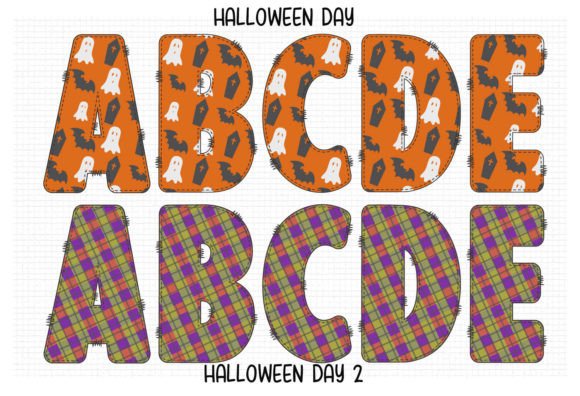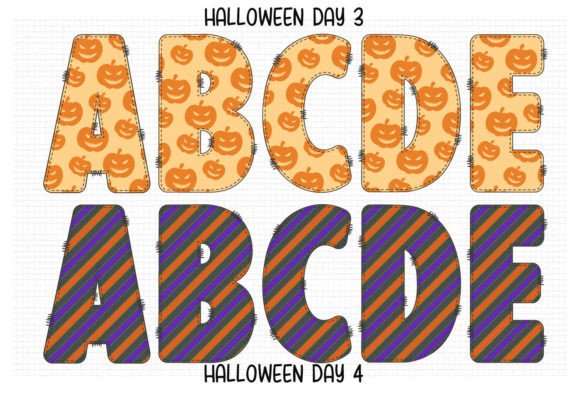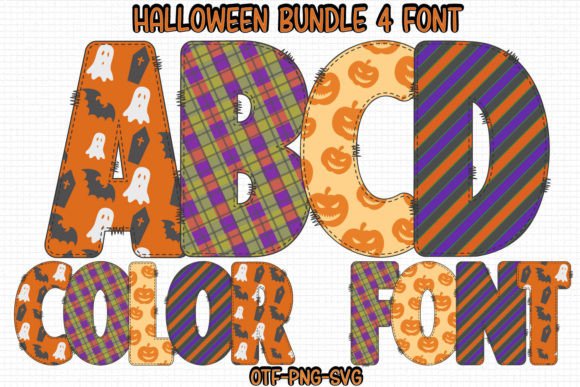
Halloween Day Font: A Spook-tacular Addition to Your Design Collection
Are you ready to add a dash of Halloween spirit to your designs? Look no further than the Halloween Day Font, a delightful and detailed colored font that’s perfect for a variety of creative projects. In this article, we’ll dive into the features and benefits of this font, as well as provide tips on how to use it with popular design software and cutting machines.
What is Halloween Day Font?
Halloween Day Font is a specially designed font that captures the essence of Halloween with its cute and fun style. This font is ideal for creating Halloween-themed projects, such as posters, school designs, flyers, book and movie covers, and more. The font is available in two versions: a black version and a color version, each with its own unique features and compatibility.
Key Features of Halloween Day Font
- Halloween-themed design: The font features intricate details and a playful style that’s perfect for Halloween-themed projects.
- Color and black versions: The font is available in both color and black versions, offering flexibility in your design choices.